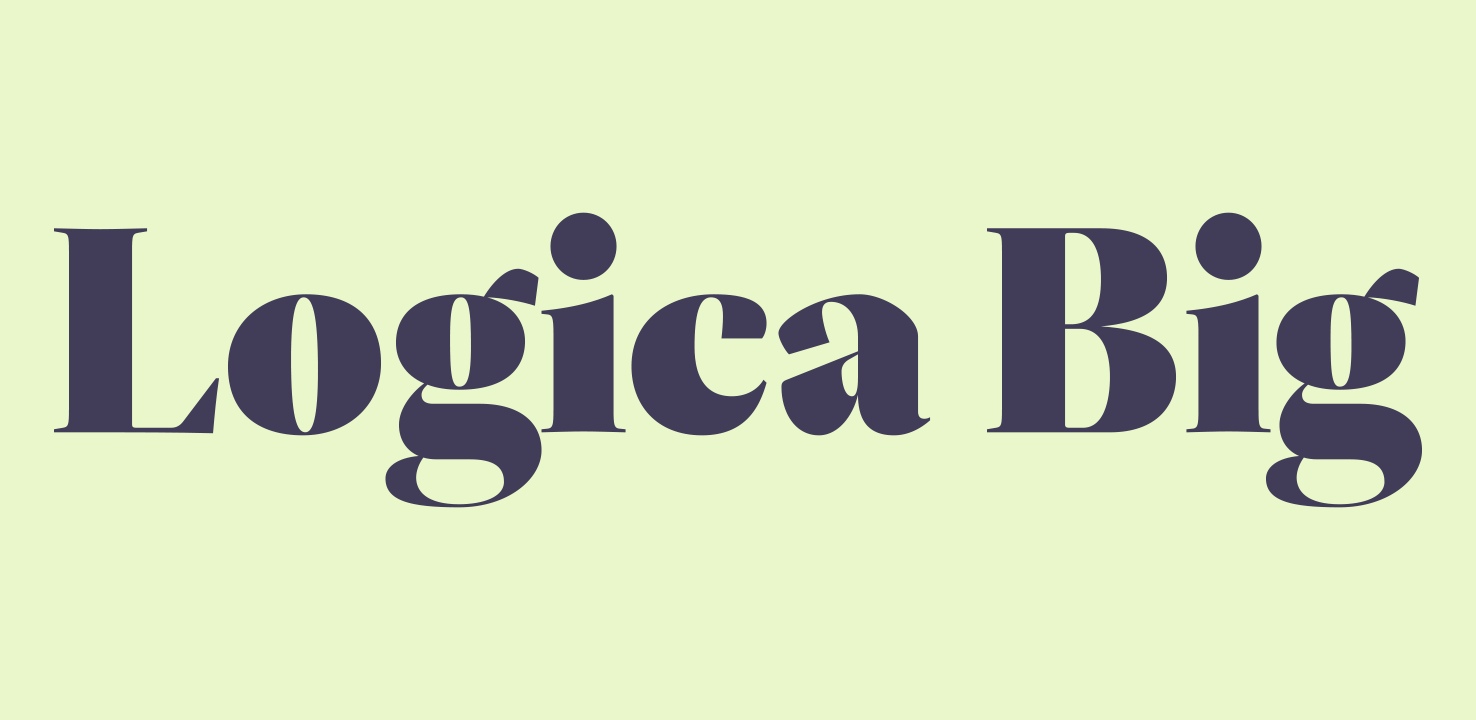
Logica Big Font
Logica Big Font is perfect for corporate presentations, large-scale signage, billboard advertising, stadium displays, conference materials, systematic branding, architectural applications, transportation graphics, digital interfaces, professional documentation, data visualization, and impactful communication systems.
What makes Logica Big Font exciting is its logical precision that maximizes readability and visual impact through systematically engineered letterforms designed for optimal performance at large scales and complex information environments. This powerful typeface embodies the principles of rational design and systematic thinking, combining mathematical precision with bold presence that resonates with audiences seeking clear communication and authoritative information delivery. The font's logical structure and optimized proportions create maximum clarity while maintaining the professional authority essential for corporate presentations and large-scale public communications. Its systematic personality makes it perfect for organizations that need to communicate complex information with absolute clarity and logical organization.
The Logica Big Font family includes light, regular, medium, and bold weights, featuring systematic alternates, logical ligatures, and precision-engineered design elements. The character set incorporates data symbols, systematic numerals, and professional punctuation marks that enhance the font's logical character and provide designers with comprehensive big-scale typography solutions for maximum information clarity and systematic brand communications.
Whether you're developing large-scale brand identities, creating systematic presentation materials, or designing big-impact communications, Logica Big Font Free Download delivers the logical authority your large-scale projects require. This premium typeface excels in applications where maximum clarity and systematic organization are crucial for information delivery and audience comprehension in complex corporate and public environments. The font's big-scale qualities work magnificently across conference displays, corporate presentations, and digital information systems, making it an indispensable asset for designers serving corporate and institutional markets requiring maximum visual impact. International corporations and systematic organizations choose this font for its ability to communicate logical authority while maintaining perfect readability and professional credibility across diverse presentation contexts. The comprehensive character set supports multiple languages and includes specialized data symbols, expanding its versatility for international corporate applications and multilingual systematic communications. Professional designers appreciate its perfect balance of logical precision and big-scale impact, ensuring projects remain both systematically clear and visually commanding for corporate audiences. When you implement this exceptional big font in your systematic communications, you're selecting a typography solution that celebrates logical thinking and maximum clarity, ensuring your organization communicates authority and systematic excellence while maintaining the logical credibility essential for success in competitive corporate markets and systematic industries that depend on clear information delivery, logical organization, and maximum visual impact in their professional presentations and large-scale communication systems that serve diverse corporate audiences requiring absolute clarity and systematic precision.